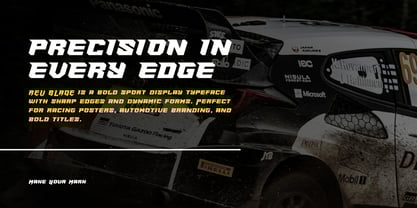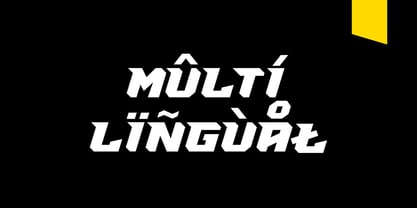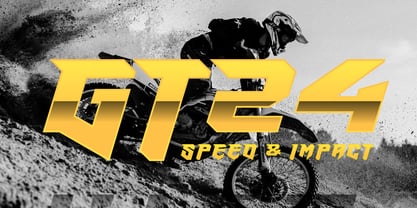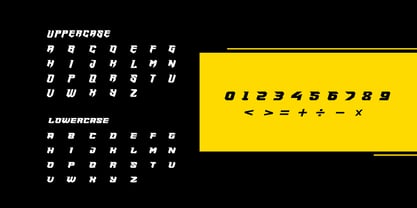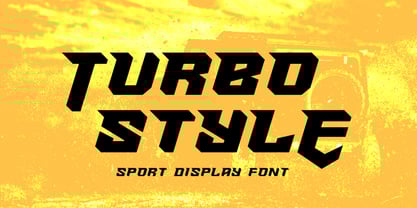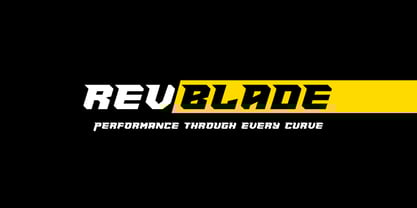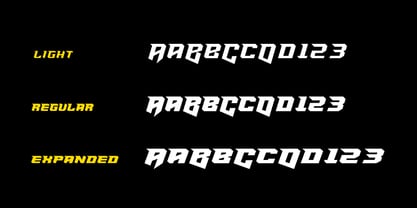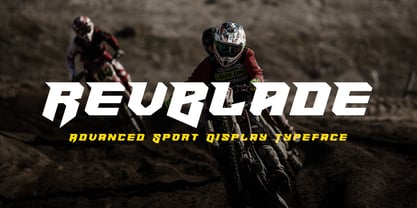
Rev Blade
The Rev Blade Font Family was designed by Yohanes Oktavianus Aang and published by Yohanes Oktav. Rev Blade contains 3 styles and family package options. More about this family
RevBlade is a bold, aggressive, and geometrically structured display typeface engineered for maximum speed and a competitive edge. This high-octane font delivers a commanding, razor-sharp presence, making it ideal for projects that require an injection of raw power and adrenaline. Its powerful stance and unique, slanted letterforms ensure your message is always seen and felt. RevBlade perfectly blends the intensity of extreme sports with modern, angular design, making it the ultimate choice for designers seeking a dominant visual impact in branding, advertising, and editorial projects. With a variety of weights and OpenType features, RevBlade is versatile enough to elevate any design, ensuring your work stands out in a crowded marketplace.